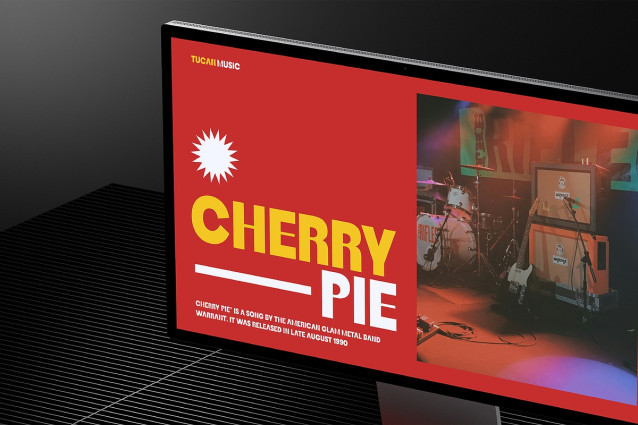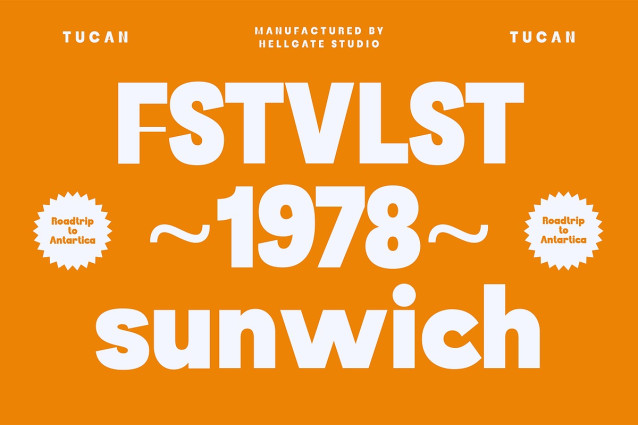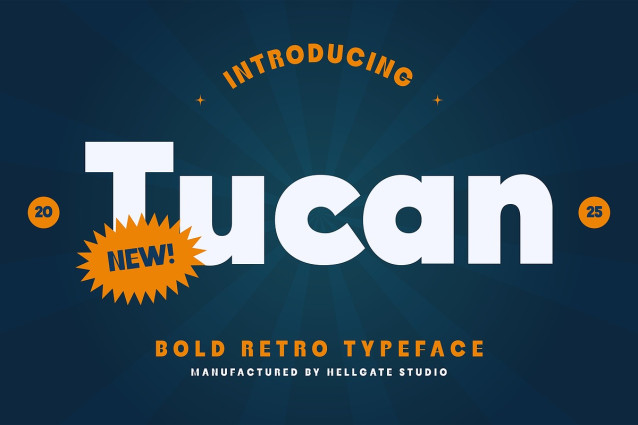
Tucan Font
Tucan Font – This masterfully crafted font reveals an audacious attitude, perfect for drafting a modern theme with a touch of vintage charm. Its bold structure and robust nature lend a strong appeal, effortlessly enhancing your text.
High on versatility, Tucan allows easy text and color editing, providing a seamless design experience. With impressive, high-quality rendering, what you see is truly what you get.
Experience the joys of adding an aesthetic edge to your work with Tucan Bold Retro Typeface.